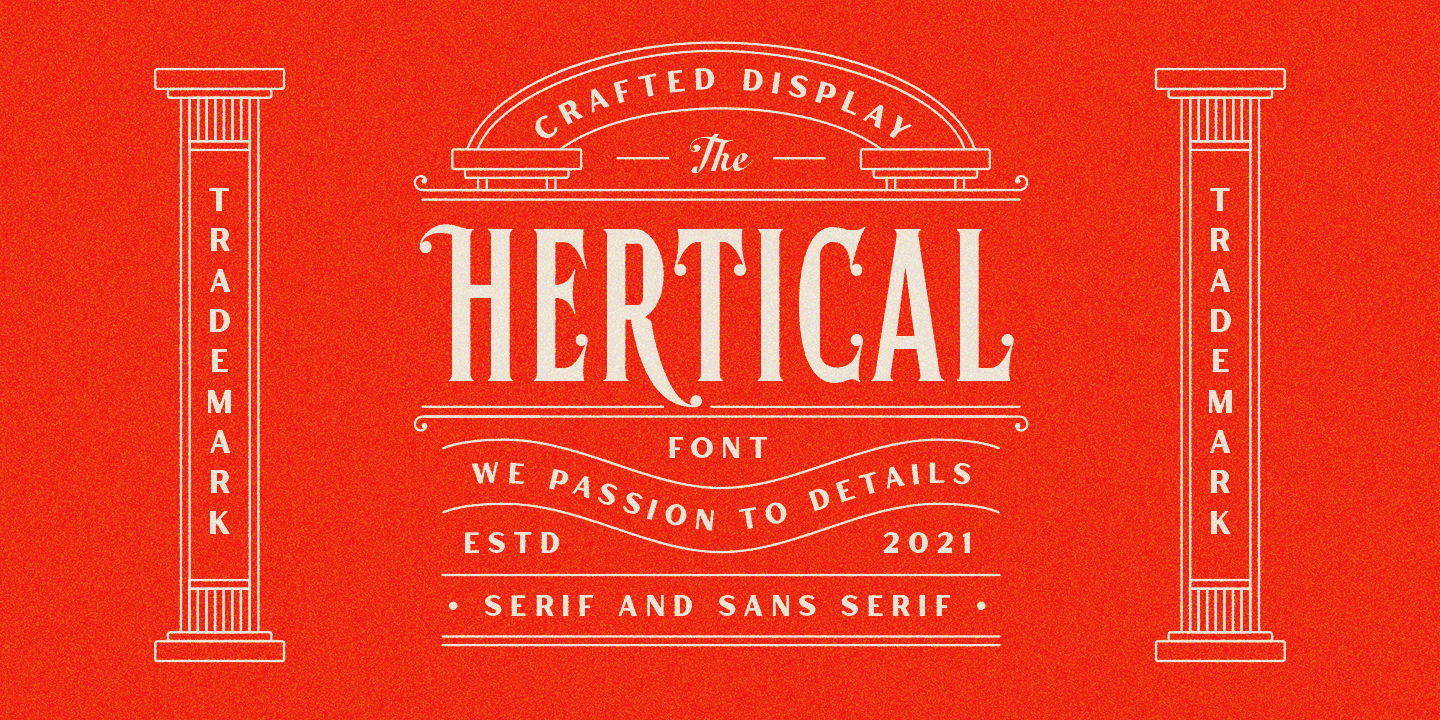
The Hertical Font excels in various design applications including modern architectural branding, contemporary corporate identities, sleek technology interfaces, progressive digital platforms, innovative startup communications, clean editorial layouts, minimalist poster design, sophisticated web typography, professional business materials, and forward-thinking brand systems that demand structural precision and contemporary elegance.
What makes the Hertical Font exciting is its architectural approach to typography that combines structural integrity with refined aesthetic sensibility, creating letterforms that embody both strength and sophistication. This typeface demonstrates exceptional attention to geometric principles and proportional harmony, featuring carefully balanced characters that convey stability, reliability, and progressive thinking. The font's systematic design philosophy makes it ideal for brands seeking typography that communicates precision, innovation, and professional excellence while maintaining visual appeal and contemporary relevance.
The Hertical Font family typically includes comprehensive weight variations from light to bold, featuring corresponding italic styles and extended character sets optimized for multilingual applications. These family members often include condensed and expanded width variants, along with specialized versions designed for specific contexts like display headlines, body text, and digital interface applications, ensuring optimal performance across diverse professional design requirements.
Design professionals and architectural firms consistently select Hertical Font Free Download for projects requiring typography that combines structural beauty with functional excellence. This typeface delivers outstanding performance in corporate communications, architectural presentations, and technology branding where conveying precision, reliability, and contemporary sophistication is essential for establishing professional credibility. The font's systematic approach makes it particularly suitable for complex branding systems requiring consistent visual hierarchy. Download Hertical Font Free Download today to access this exceptional typeface that transforms professional communications with its architectural precision and contemporary elegance, creating compelling visual experiences that demonstrate both technical excellence and refined aesthetic judgment.